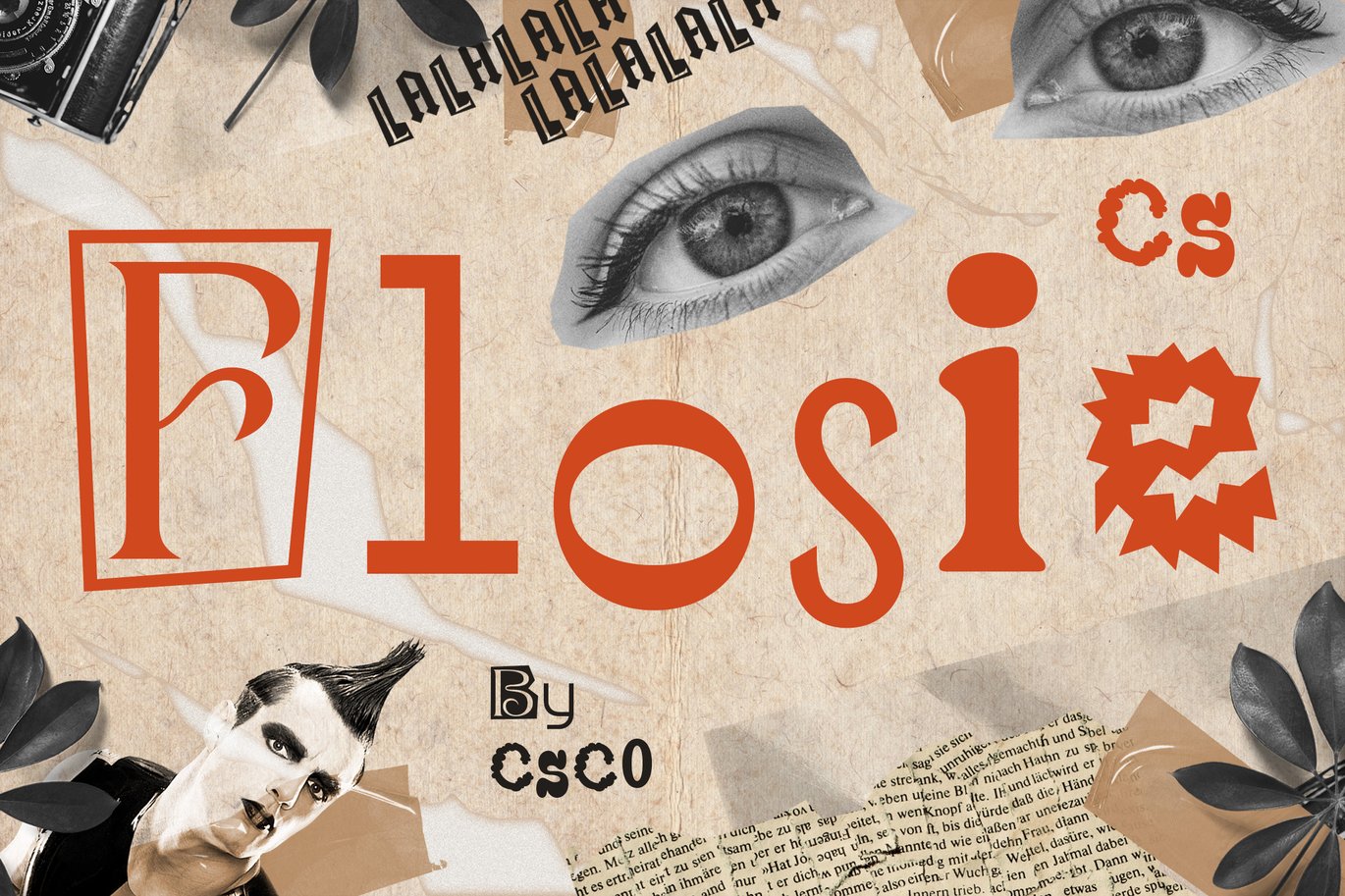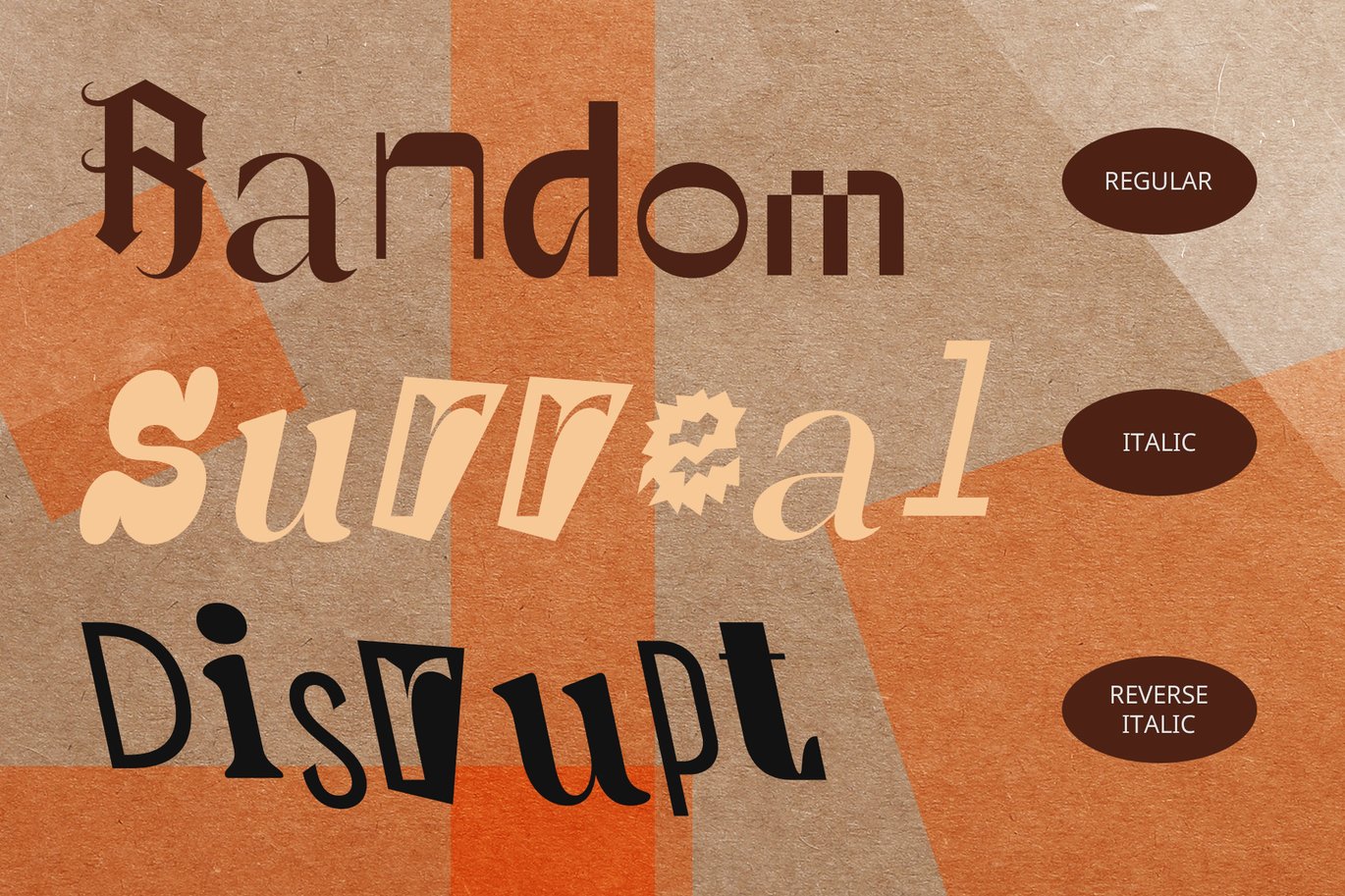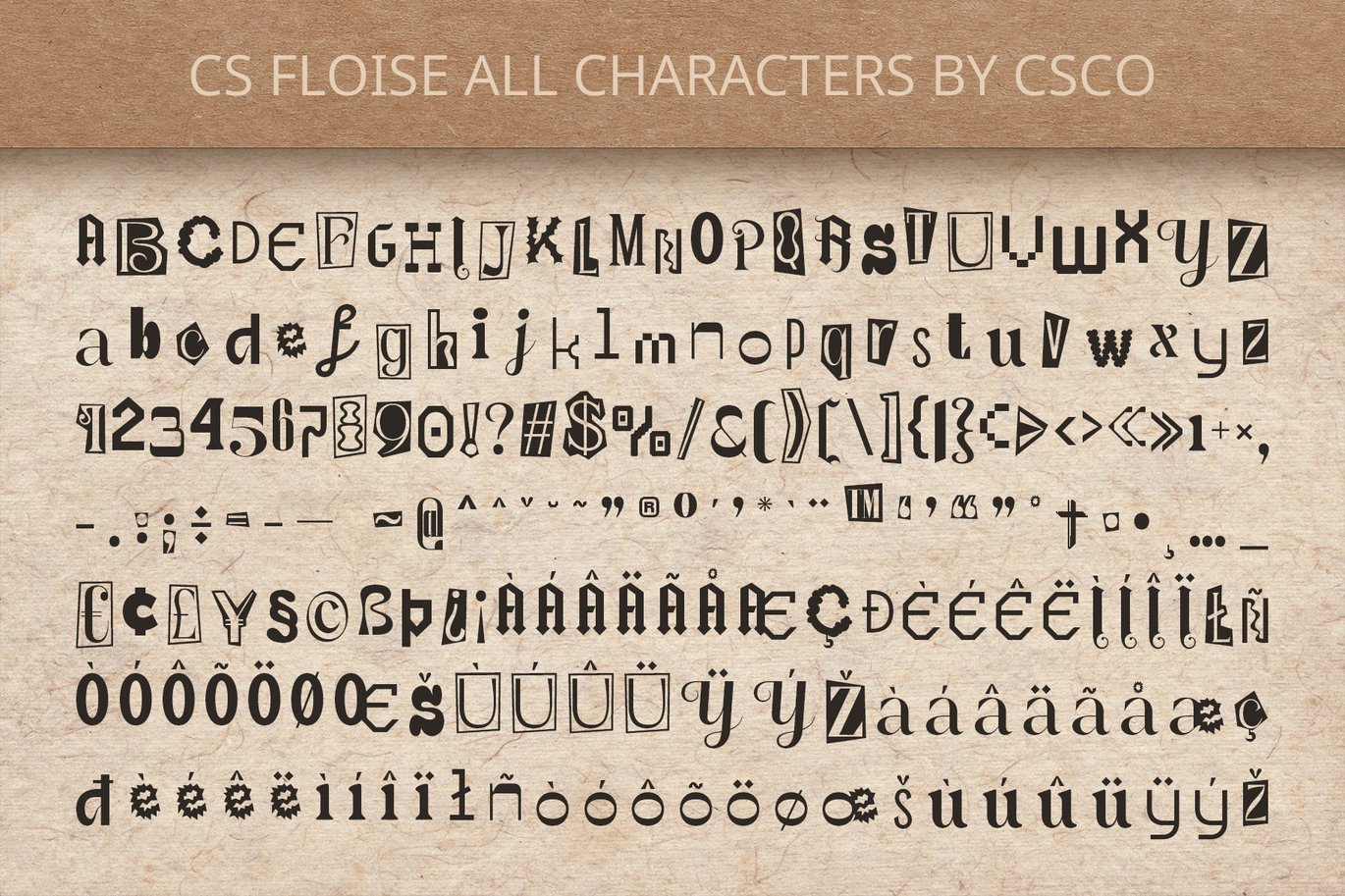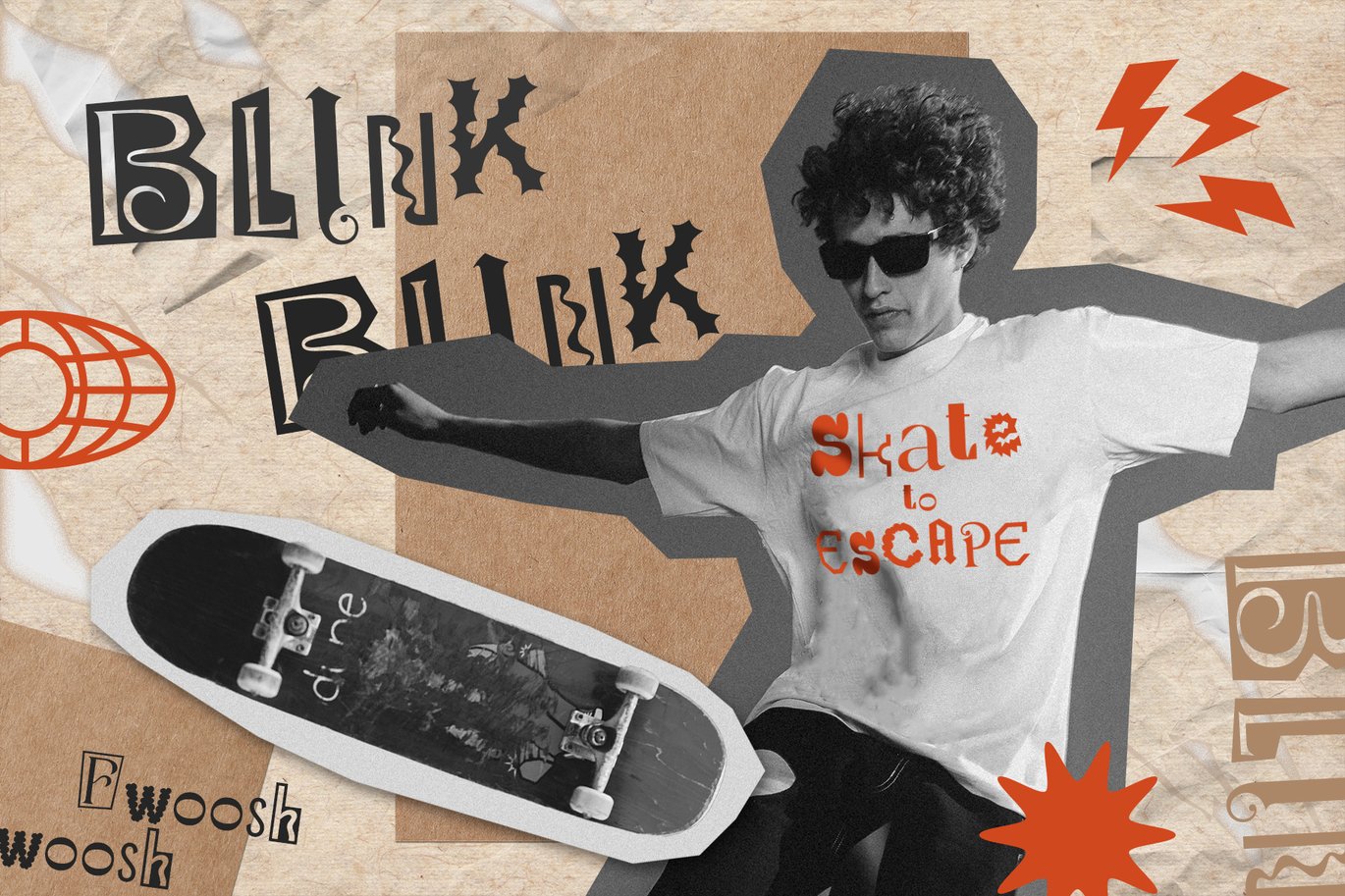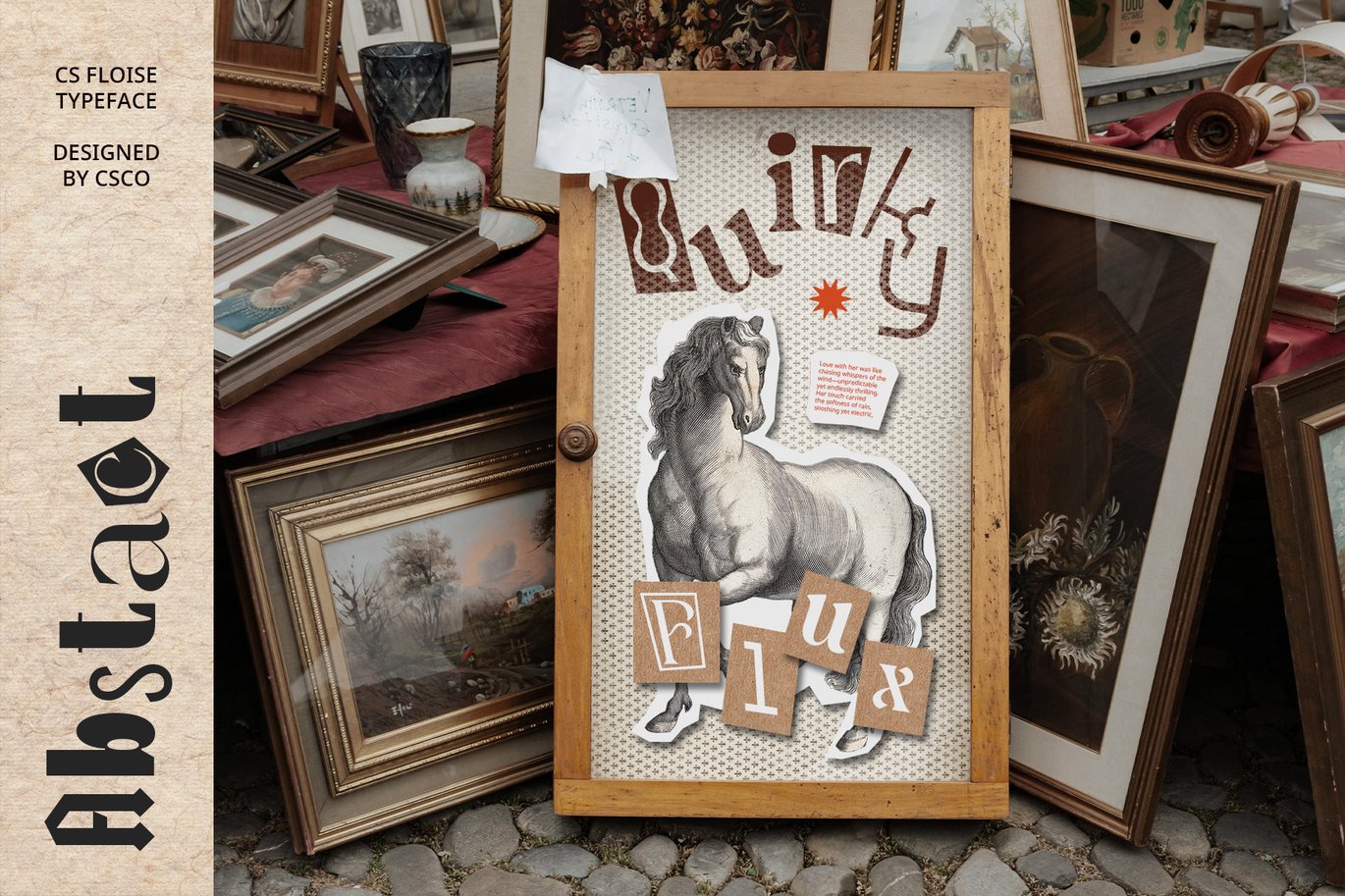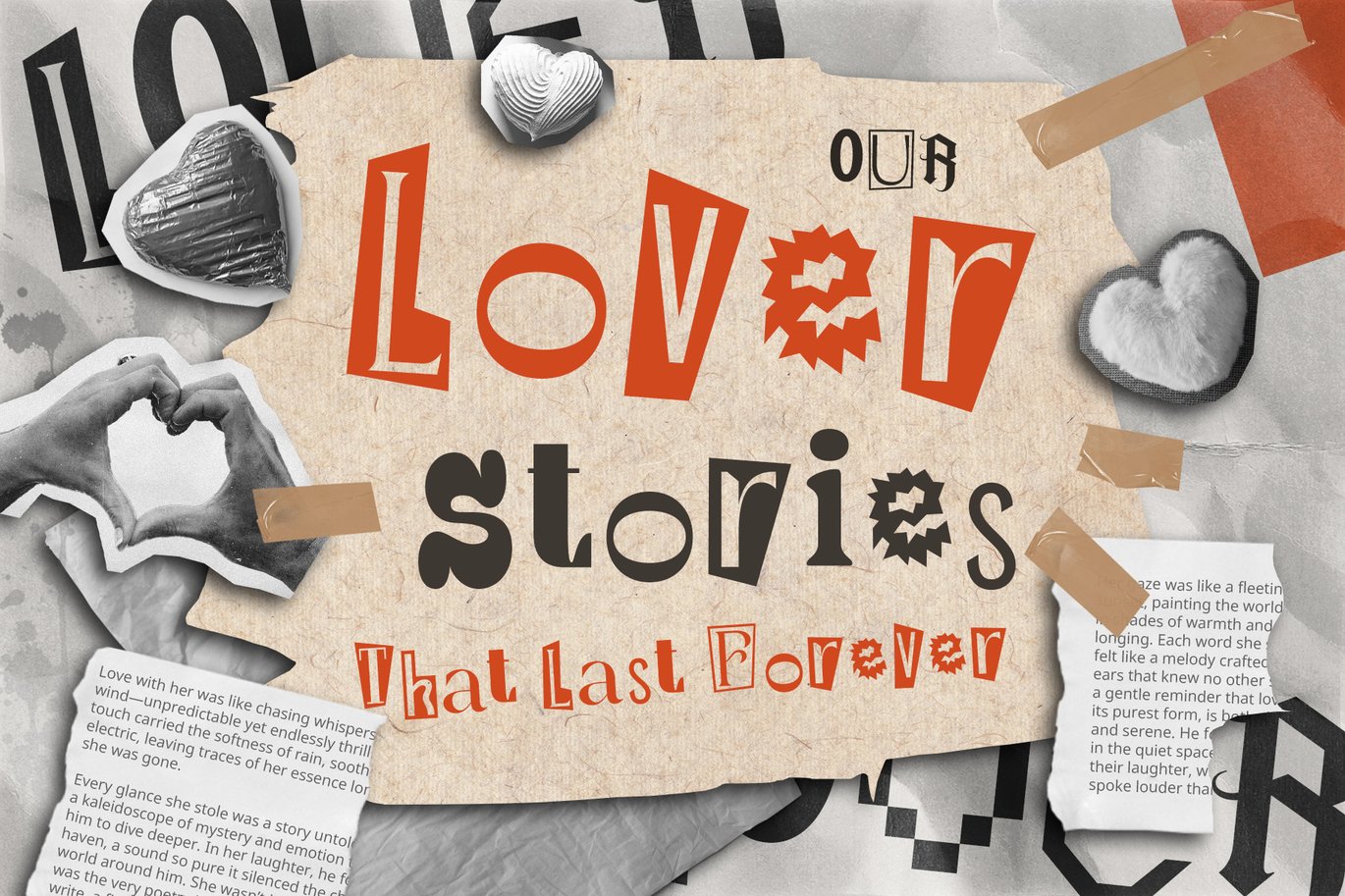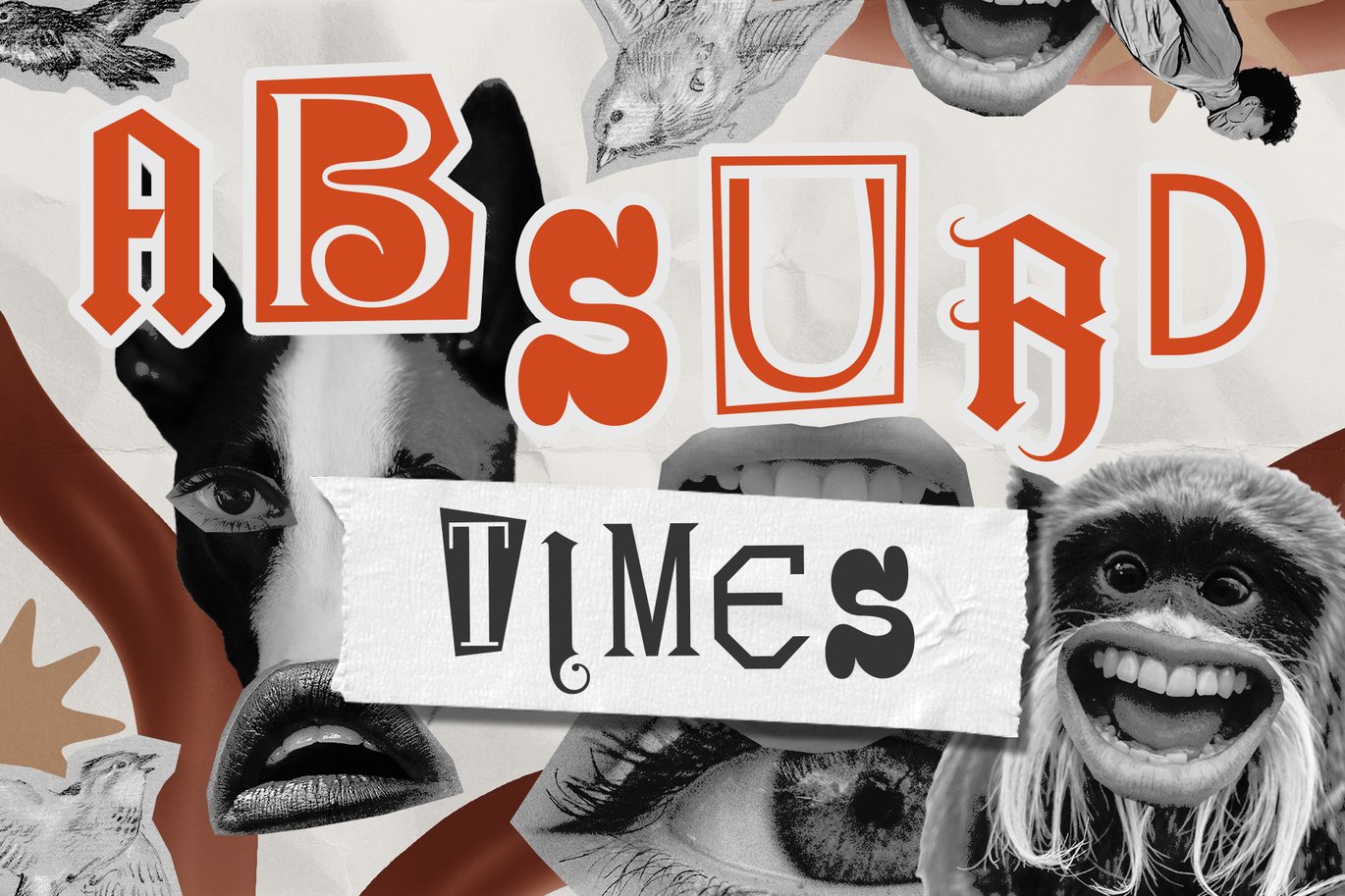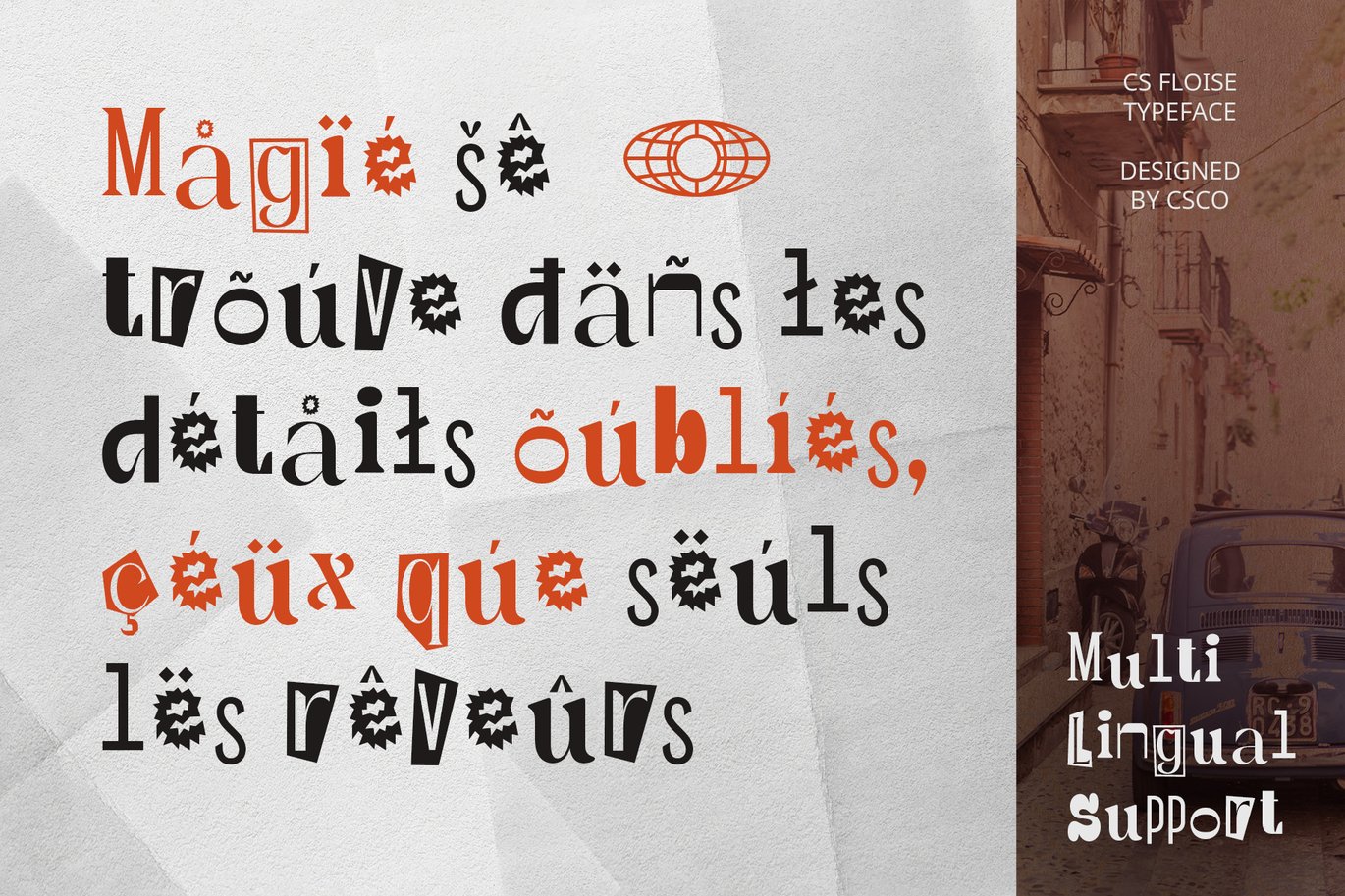
Flosie – Collage Font
CS Flosie – Collage Font: A Playful and Rebellious Display Font
Mismatched Letterforms for a DIY Aesthetic
CS Flosie is a unique collage display font that embraces a raw, cut-and-paste aesthetic. Drawing inspiration from punk zines, ransom notes, and the DIY culture of the underground, this font combines mismatched letterforms, irregular shapes, and cut-out styles to create an eclectic and handcrafted look. Its design exudes a sense of individuality and spontaneity, perfect for projects looking to make a statement.
Raw Energy and Creative Chaos
With its bold and unpolished appearance, CS Flosie captures the essence of creative rebellion. Its irregular, jarring forms convey a sense of energetic chaos, making it ideal for designs that seek to break free from the ordinary. Whether you’re working on posters, album covers, streetwear branding, or experimental graphics, this font adds an unpredictable edge that stands out in a crowd. It’s perfect for capturing the attitude of alternative culture, offering a fresh, unrestrained feel that challenges the norms.
Perfect for Experimental and Bold Designs
Designed for designers who embrace the unconventional, CS Flosie brings a playful yet bold character to your designs. It’s the perfect choice for anything from vibrant, funky aesthetics to grunge-inspired visuals. Whether you’re creating music-related materials, edgy promotional pieces, or avant-garde editorial layouts, this font offers an energetic and dynamic vibe